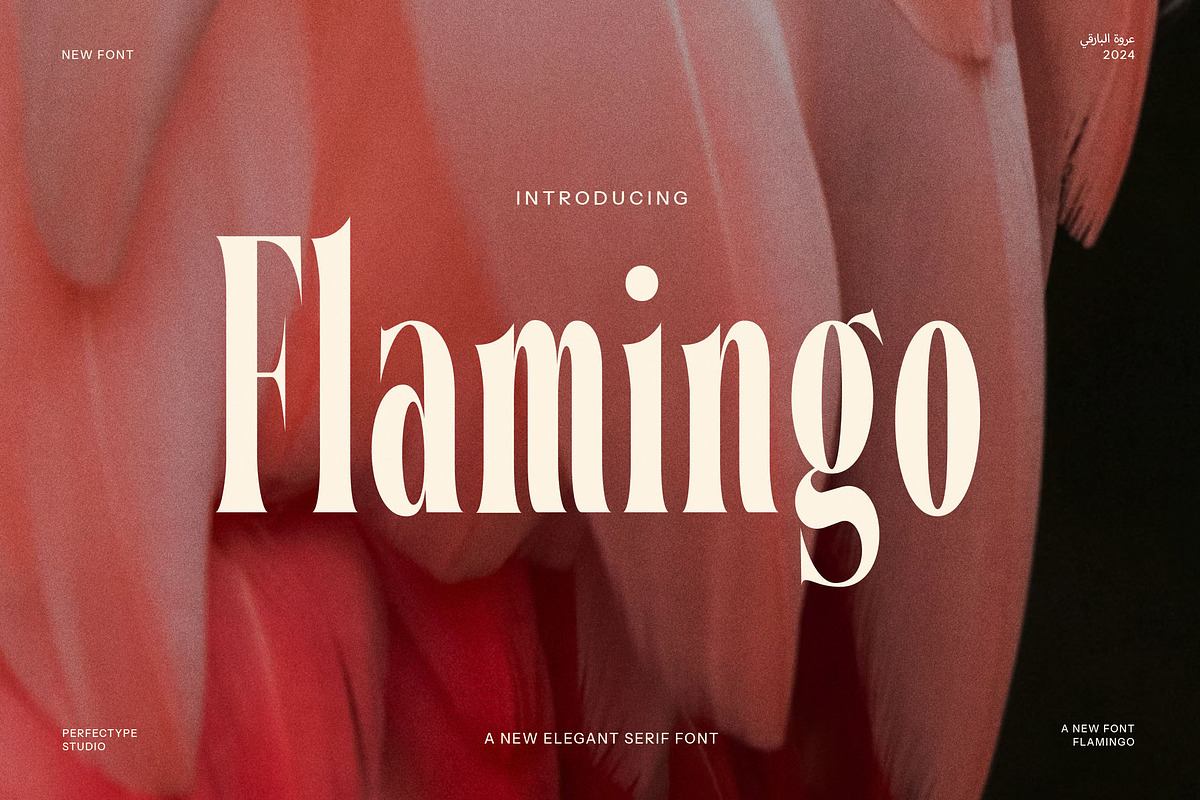
The Flamingo Elegant Serif Font Free Download is a sophisticated and timeless serif typeface designed to bring a touch of elegance to your creative projects. Perfect for branding, editorial designs, logos, and invitations, this font adds class and style to any design. Please note, for commercial use, a license must be purchased. You can download it for free for testing purposes.
With its refined serifs and stylish proportions, the Flamingo Elegant Serif Font Free Download is ideal for creating projects that require a high-end, polished look. Whether you're working on luxury branding, editorial layouts, or event invitations, this font gives your work a timeless, professional appearance.